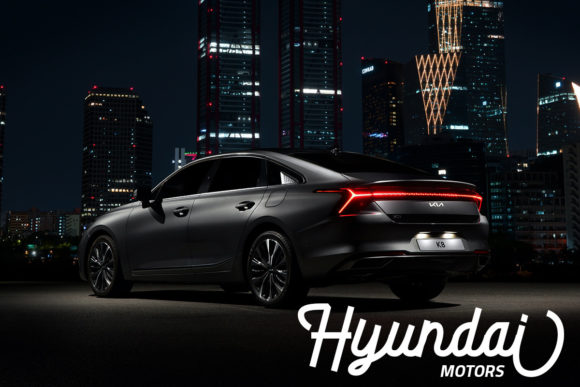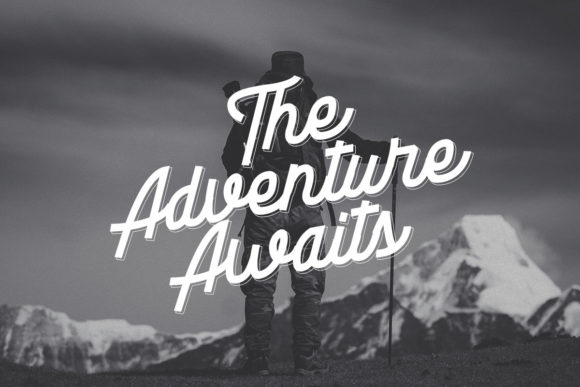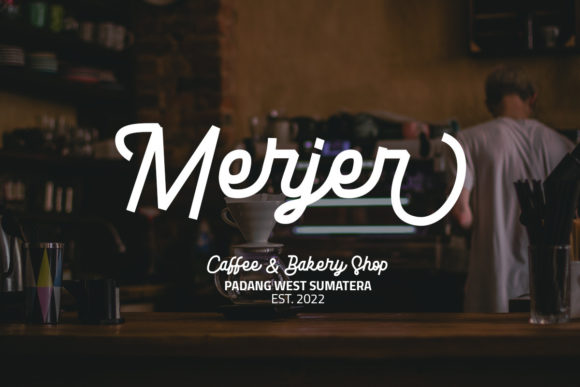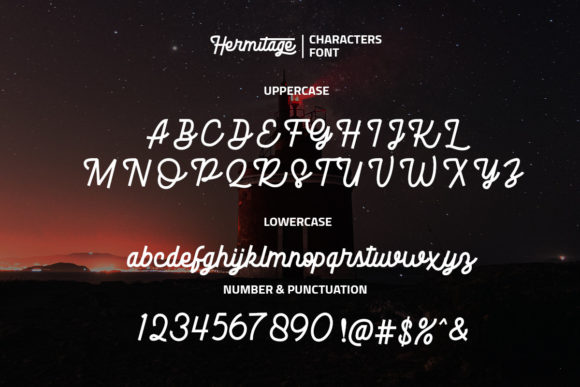
Introduction to Hermitage Font
Hermitage is a versatile and vintage styled script.
Add it confidently to your projects, and you will love the results This font is PUA encoded which means you can access all of the glyphs and swashes with ease.